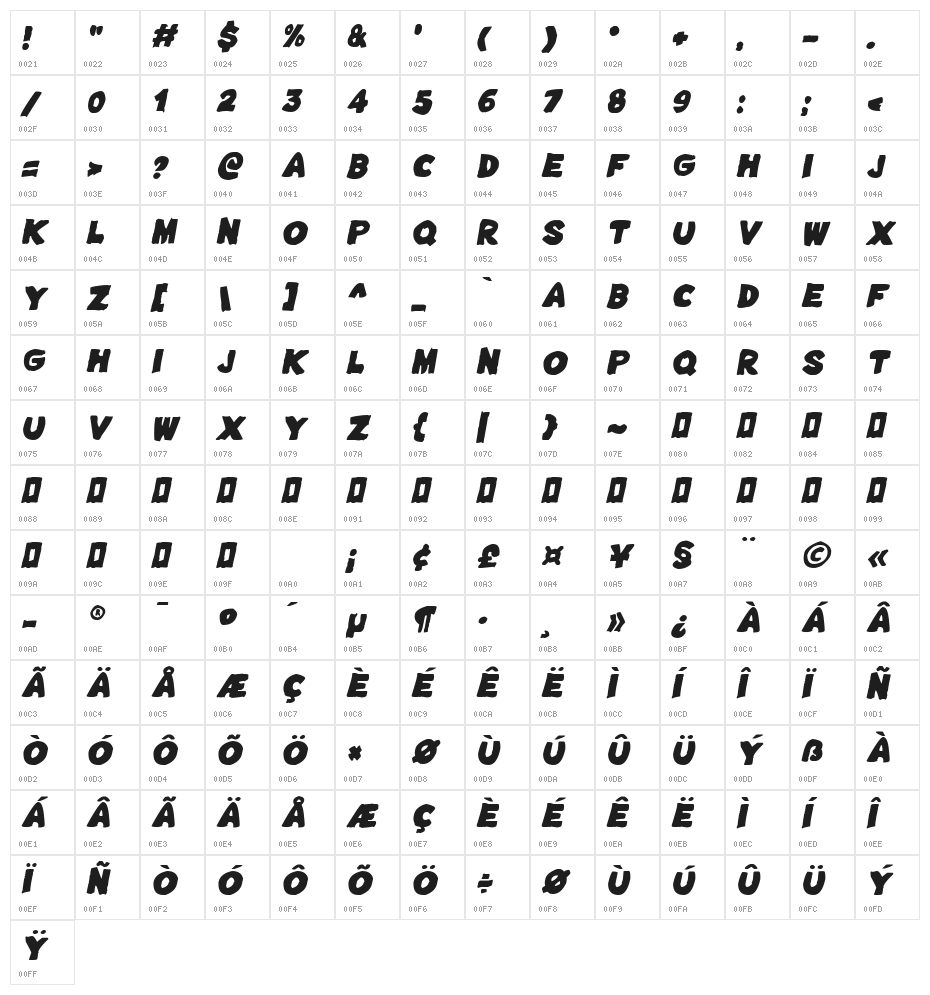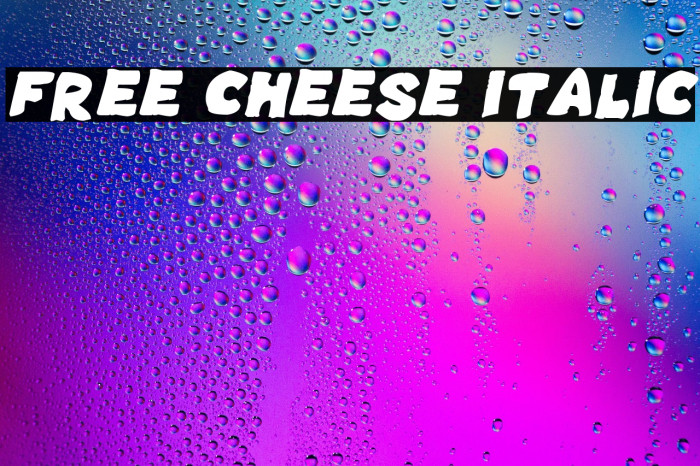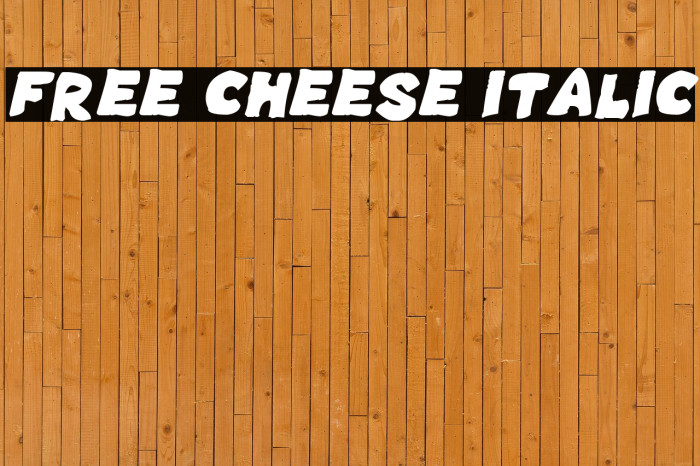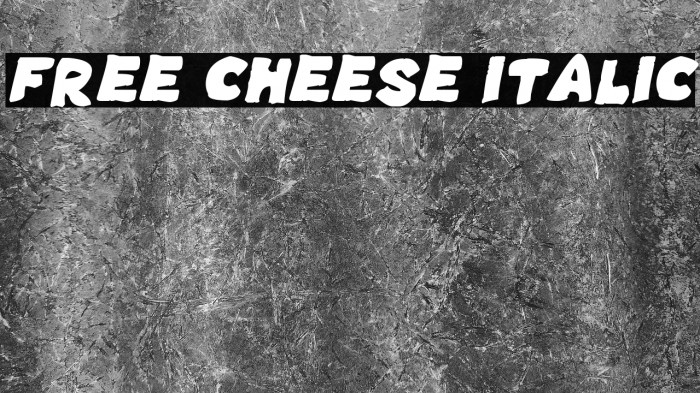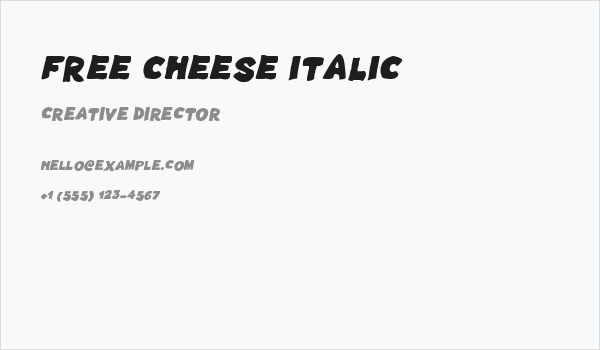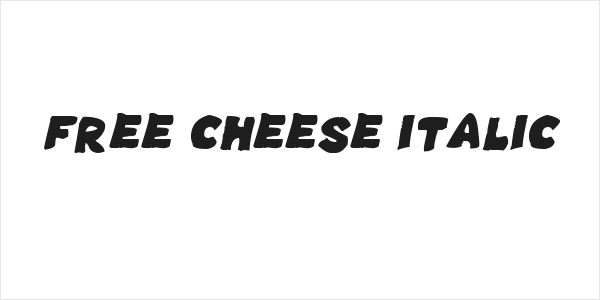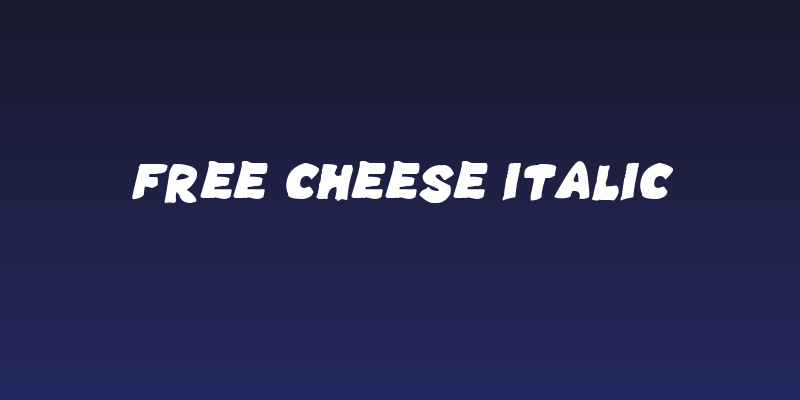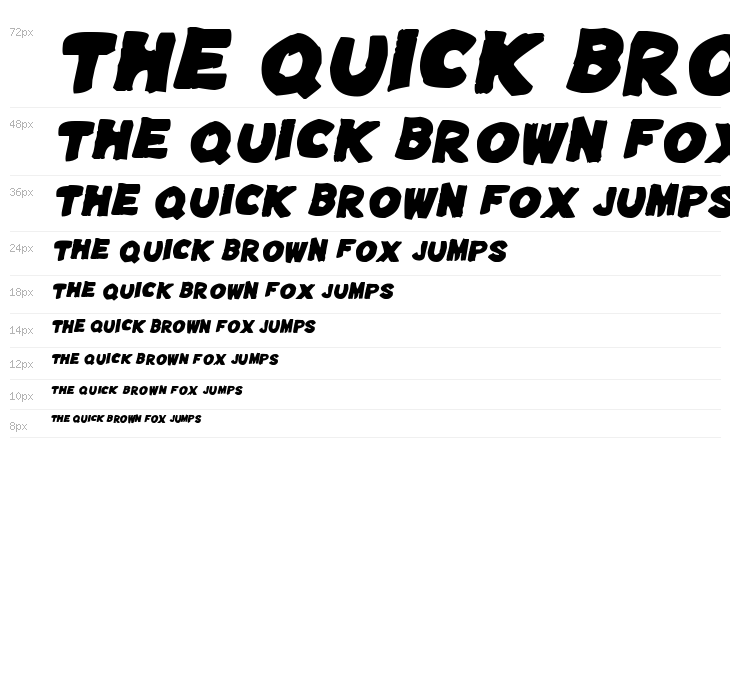
Free Cheese Italic Font
Free Cheese Italic Description
This font features a bold and playful style with a distinct italic slant, giving it a dynamic and energetic appearance. The characters are thick and rounded, with a slightly irregular shape that adds a sense of movement and fun. The uppercase and lowercase letters maintain a consistent weight, while the numbers and special characters follow the same bold and lively design. The font's overall look is reminiscent of hand-drawn or brush lettering, making it suitable for creative and informal applications.
| Overall Style | Playful, Energetic, Hand-drawn |
| Proposed Projects | Ideal for children's book covers, playful branding, casual posters, and creative social media graphics. |